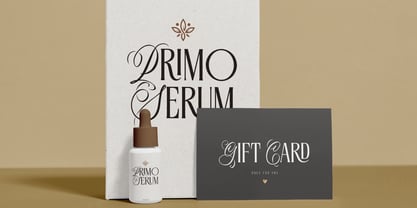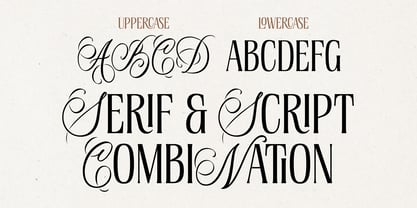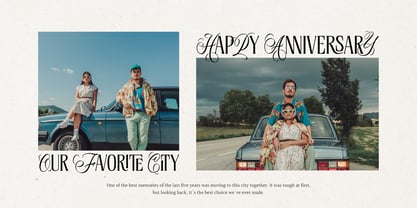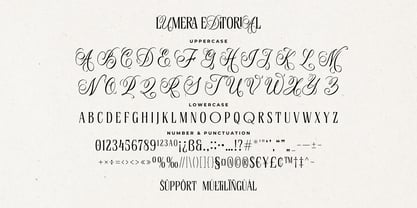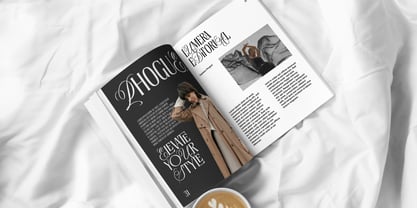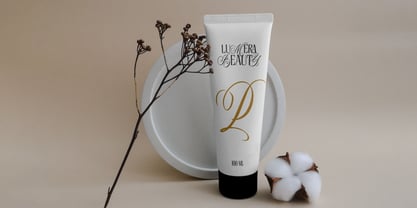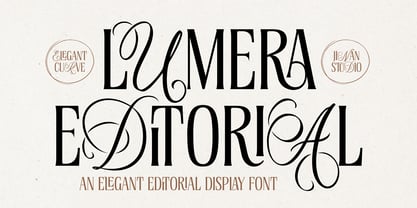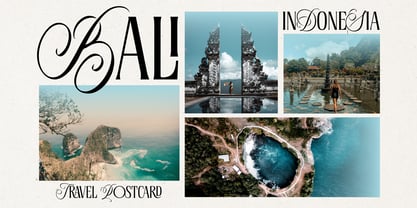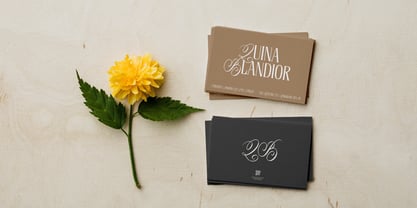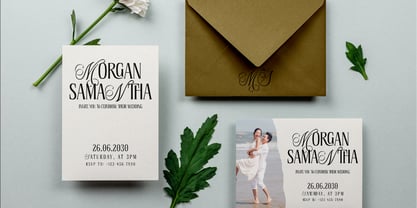
Lumera Editorial
by Jinan Studio
The Lumera Editorial Font Family was designed by Andi Syahdang and published by Jinan Studio. Lumera Editorial contains 1 styles. More about this family
Lumera Editorial is an elegant luxury display serif font designed to bring sophistication, glamour, and feminine charm to your typography. Featuring high-contrast letterforms, refined serif details, graceful curves, and dramatic ornamental swashes, Lumera Editorial blends timeless elegance with a modern fashion-forward aesthetic. Its distinctive flourishes create an expressive and luxurious appearance, making every word feel like a carefully crafted editorial statement.
Perfect for fashion branding, luxury logos, editorial design, magazine covers, beauty and skincare branding, perfume packaging, wedding invitations, bridal stationery, boutique branding, romantic designs, product packaging, social media graphics, and high-end advertising. Whether you're creating an elegant fashion identity, a sophisticated wedding suite, or a premium beauty brand, Lumera Editorial adds a polished, artistic, and unforgettable touch to every project.
Features
• A set of uppercase and lowercase glyphs
• Number, symbol, and punctuation
• Multilingual Support
• Alternate & Ligatures
Designers: Andi Syahdang
Foundry: Jinan Studio